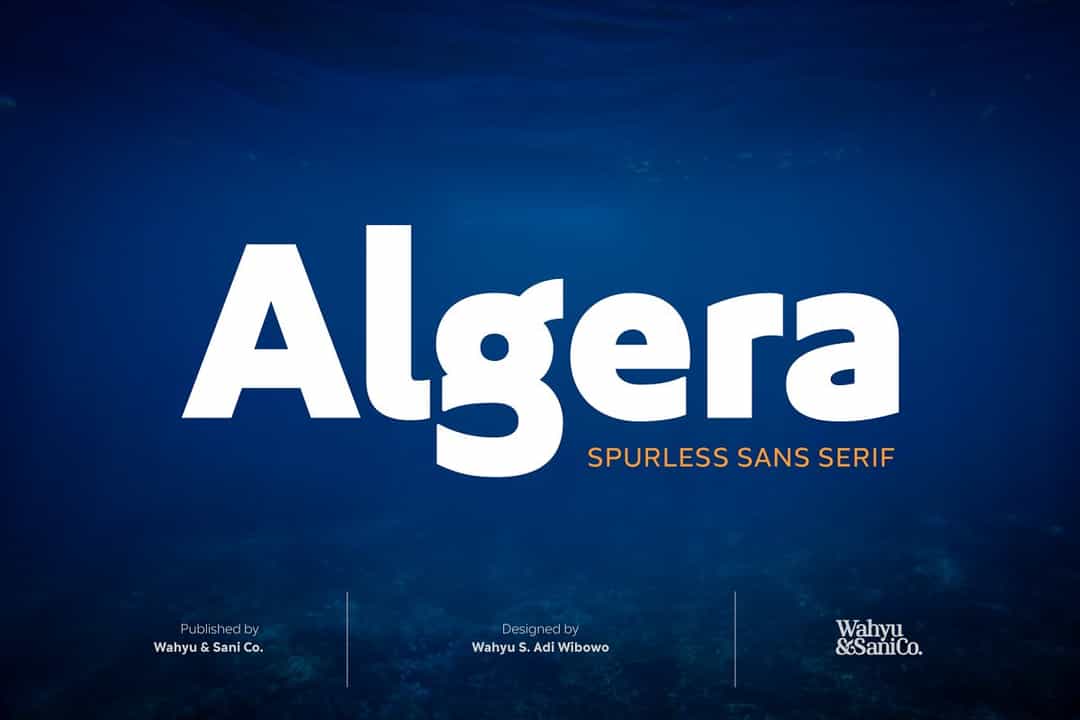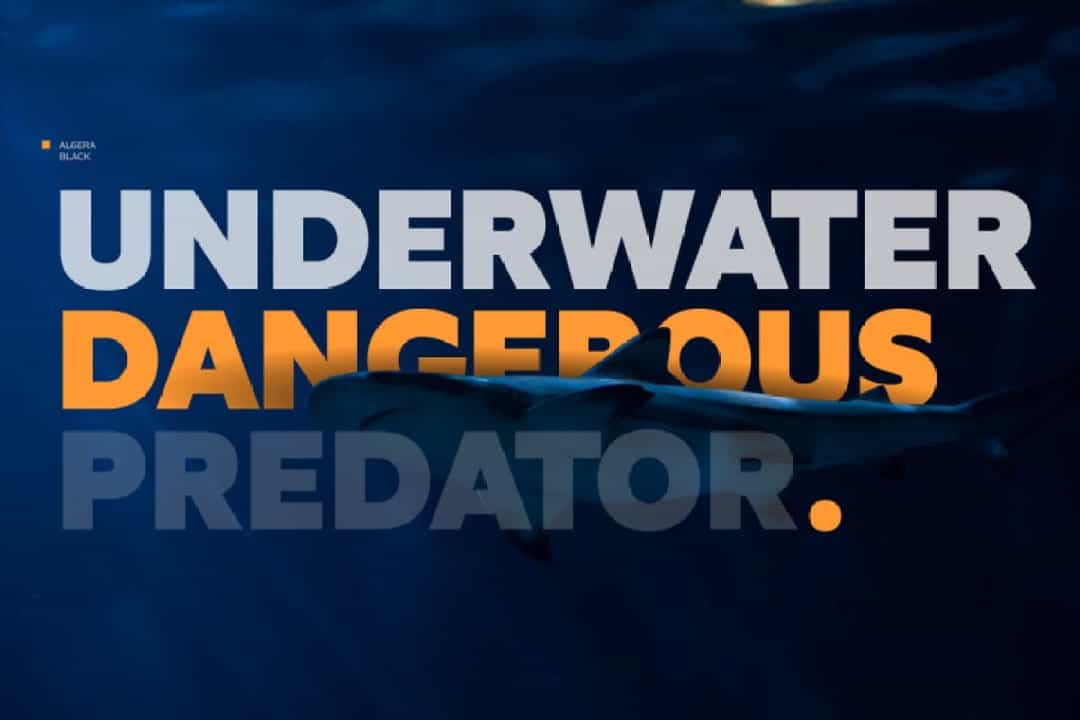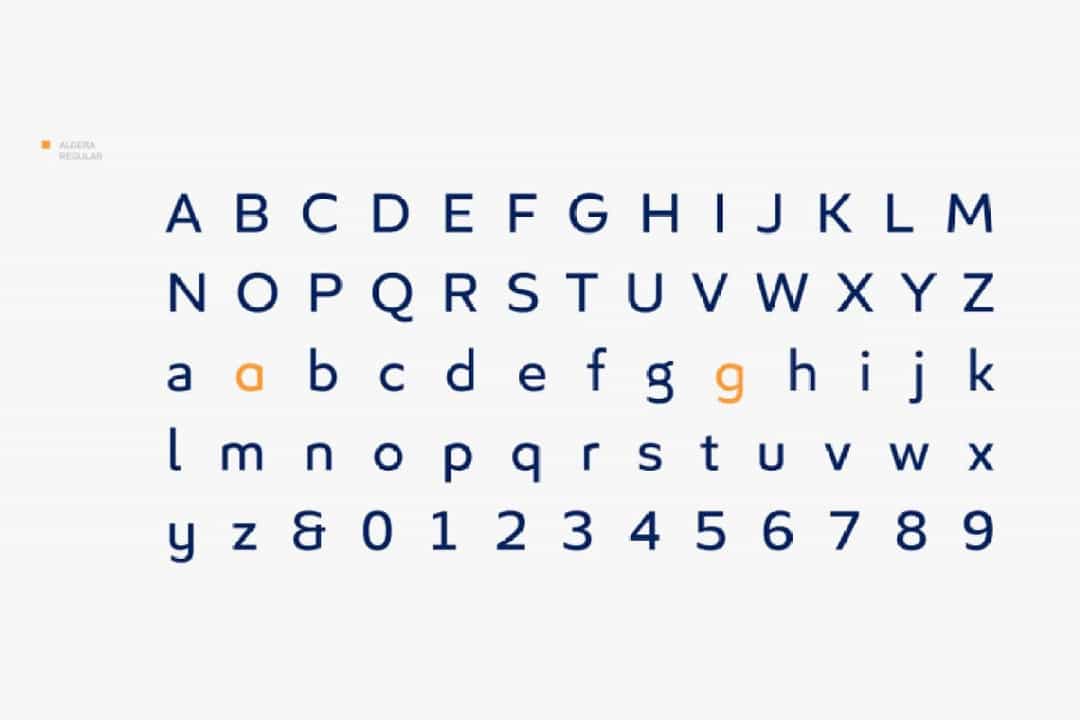
Algera is a sans serif designed without spurs, and it has low contrast between vertical cut off terminals. Said to be another typeface of Garamond, it has a very robust and rather wild look with Algera Sans being its common name. This family of fonts contains nine weights of the font ranging from Thin to Black with the italic version of each font style.